20+ Happy New Year Font Collections to Brighten Your Celebration
The right Happy New Year font can instantly transform your design from ordinary to unforgettable. Whether you’re creating greeting cards, posters, or digital banners, the right typeface captures the magic, optimism, and sparkle of a brand-new year.
Key Takeaways:
- A Happy New Year font should capture celebration and positivity through bold, joyful, or sparkling designs.
- Choose a font style that aligns with your design purpose, whether it’s elegant for invitations or playful for social media greetings.
- Futuristic styles are also suitable for New Year celebrations, creating a sense of innovation and looking ahead to the future.
20 Best Happy New Year Font Ideas to Celebrate in Style
Discover the best Happy New Year fonts in playful, elegant, and futuristic styles that bring your celebration visuals to life.
Playful
Playful New Year fonts bring joy and excitement to your designs. With bold curves, quirky details, and fun energy, these fonts are perfect for greeting cards, party invitations, or any design meant to spread smiles and good vibes.
1. Lionel Virgi
Lionel Virgi is an expressive display font with tall letters and dynamic thickness. Its rounded edges and popping atmosphere are perfect for New Year’s festivities.
2. Pakuintho
If you want an angular typeface for your New Year’s Eve designs, use Pakuintho. Pakuintho displays similar heights in both cases, allowing you to create funnier typography designs.
3. Pisang Keju
Pisang Keju is a monoline display font with tall letters. This display font explores the essence of handwriting, featuring looping and a realistic writing flow, with natural ornaments.
4. Floretta
Floretta is perfect for your Happy New Year font style text with its playful, sparkling ornaments. This font is fun for kids and cutesy concepts.
5. Rox Display
Rox Display creates a festive atmosphere with bright, fun letters. It has unique, curvy letterforms that allow for maximum loudness and attention-grabbing text.
6. Zamoretta
Zamoretta is another monoline display font. This one opts for a thinner profile. Made to attract and create attention, Zamoretta is composed entirely of all-caps characters.
7. Sonya Cute
Sonya Cute features a childlike handwriting style with smoother lines. It has a single letter height, giving it a quirky look when uppercase and lowercase letters are mixed.
8. Dragon Kids
Dragon Kids uses unique ends for its letters. This font is all-caps with the lowercase letters slightly smaller. Dragon Kids is naturally big and loud, perfect for all festivities.
9. Barney Pop
As the name suggests. Barney Pop excels at being a popping element in your design. Moreover, it exhibits fashionable aesthetics, perfect for your New Year’s product sale.
10. Brightly Crush
Brightly Crush is a great choice for designs with a fresh and lively concept. It comes in two styles, regular and bubble, featuring tall and eye-catching all-caps letters.
Modern Elegant
If you prefer a sophisticated touch, modern, elegant New Year fonts offer clean lines, graceful curves, and timeless balance. These fonts suit minimalist posters, upscale brand greetings, and digital cards that exude refinement and style.
1. Anthony Louis
To present the 2026 happy new year in a different font style, try Anthony Louis. This modern script typeface exudes calm yet joyful visuals, creating a new way to celebrate the new year.
2. Betharia Classy
Betharia Classy is a versatile font that works well with New Year themes. You can combine this typeface with other playful fonts or use it against festive backgrounds.
3. Geng Rimba
Geng Rimba explores delicate elegance with more graceful strokes. While keeping the typical beauty of a script font, Geng Rimba gives off more tropical and performative letterforms.
4. Catthy Wellingten
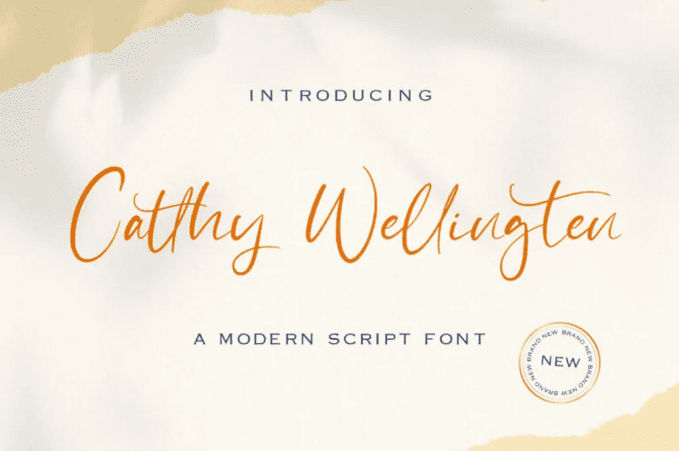
Among the elegant and modern fonts, Catthy Wellingten is the one with thin and natural motion. For a happy new year font, Catthy Wellingten easily creates a unique aesthetic to other concepts.
5. Vagnotie
Vagnotie is the classic script font with performative letterforms. With this font, you can easily make an expressive and stylish New Year design.
6. Anhattan
Anhattan is a bold, urban script font with adventurous aesthetics. As your New Year’s font, Anhattan can easily stand out, even among maximalism concepts.
Futuristic
Futuristic New Year fonts set the tone for innovation and progress. Featuring sleek shapes, geometric patterns, and tech-inspired aesthetics, they’re ideal for brands or creators wanting to convey forward-thinking energy in their New Year designs.
1. Technocra
Technocra is perfect for exploring unique vintage aesthetics in your New Year designs. It pairs well with automotive or high-tech themes, adding a bold retro touch.
2. Super Maizen
Among futuristic happy new year font 2026, Super Maizen uses more high-tech letterforms. This font is all-caps, with strong, angular shapes and stylish touches.
3. Super Guardian
Super Guardian exhibits a tamer look, combining strong, angular strokes with rounded corners. This font has a natural slant, conveying modernity and motion to your New Year’s Eve concepts.
4. Super Punch
As your happy new year font, Super Punch cleverly combines futuristic shapes with retro aesthetics. This versatile font can deliver your message smoothly, depending on your color palette and concepts.
5. Welingtom
If you want a more ornamented futuristic font for your New Year’s designs, try Welingtom. This font mimics a labyrinth structure for its letterform, adding mysterious vibes on top of its futuristic base.
6. Phoenix Gaming
As the name suggests, Phenix Gaming is a more active typeface. But this one still depicts a futuristic style through its letterforms. With angular cuts and consistent thickness, you can deliver a strong message in your New Year’s designs.
Which Happy New Year Font Will You Choose to Shine?
The perfect font can make your New Year’s message unforgettable. Whether you want a fun, elegant, or futuristic vibe, choosing the right style helps your design capture the celebration’s true spirit and emotion.